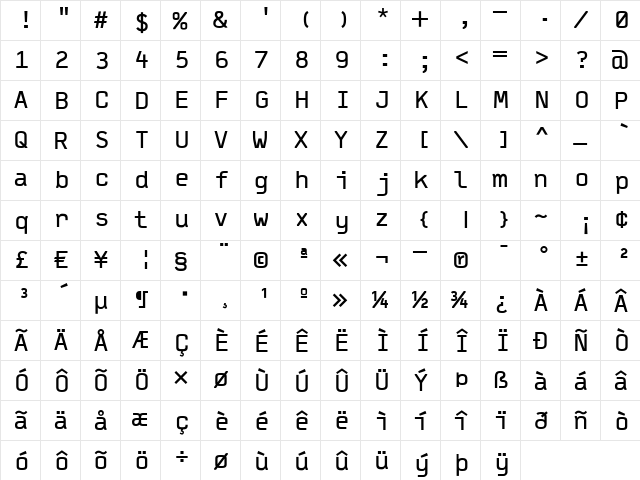
Typestar Medium
| Foundry | eBoy: Steffen Sauerteig, Kai Vermehr, . Published by FontShop International. FontFont Release |
Design Context for Typestar Typeface
Typestar takes a measured approach to typography — its balanced proportions and neutral character make it a reliable workhorse for both digital and print work.